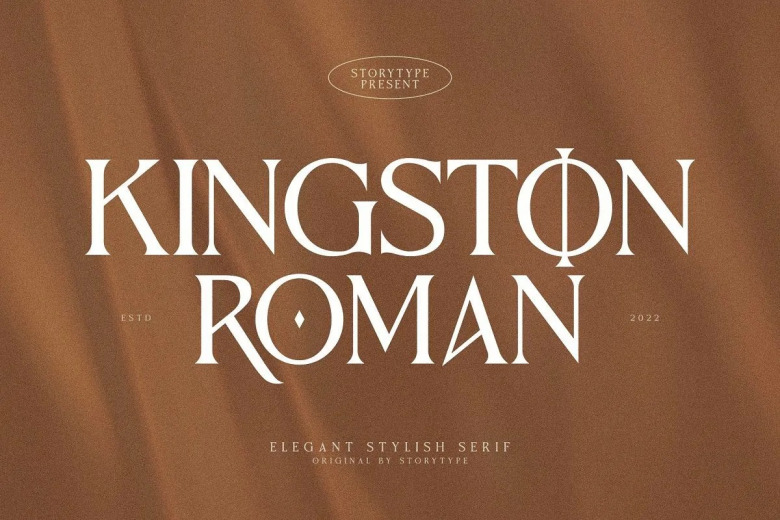
Kingston Roman Font
Kingston Roman is a modern and classic serif font, with unique style and fancy look. This typeface suit for elegant & luxury logo, book or movie title design, fashion brand, magazine, clothes, lettering, quotes, and so much more.
Kingston Roman Serif Font